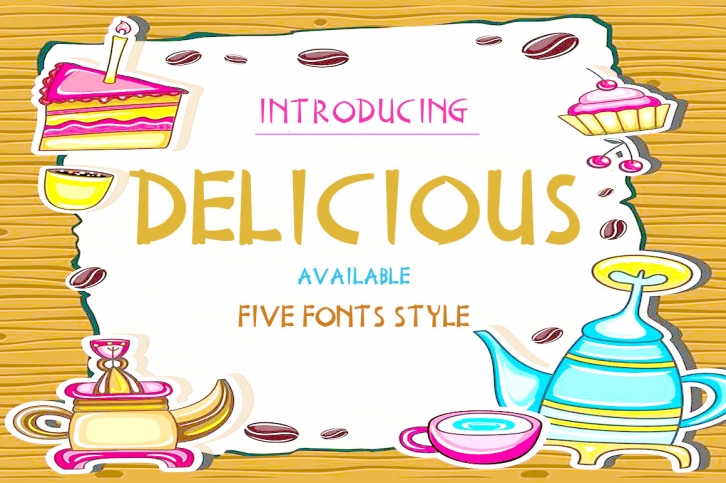
Delicious is a gorgeous font that was realeased on March 13, 2018. The font can be used in many style contexts and design environments. Perfect for invitations, magazines, websites, logos, and more! It was designed by Haksen and the file size is 12.20 MB. Thanks for checking out this font!